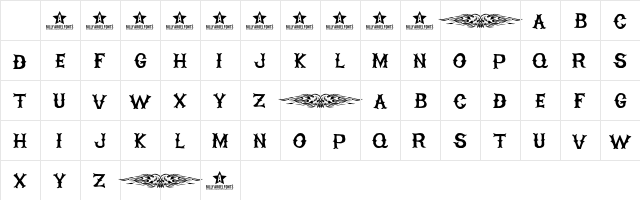
HIGH ON FIRE is a composed and adaptable typeface that performs quietly and consistently across a wide range of design contexts.
Pro Tip: Use HIGH ON FIRE in both headline and body roles to test its range before committing to a single application.